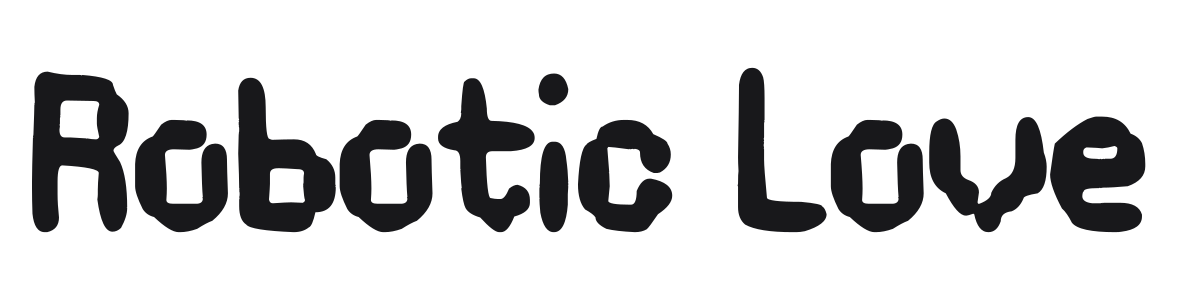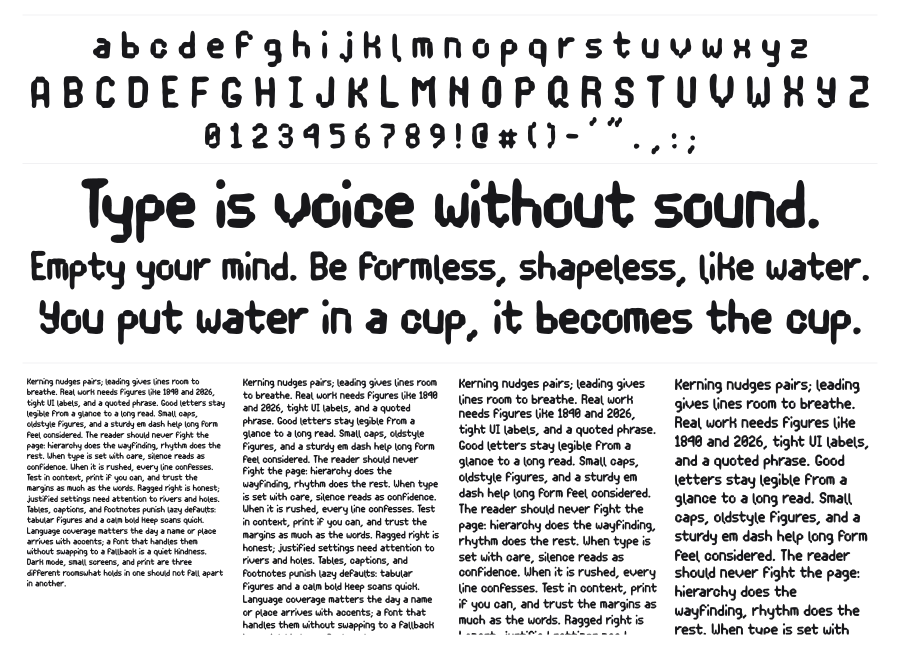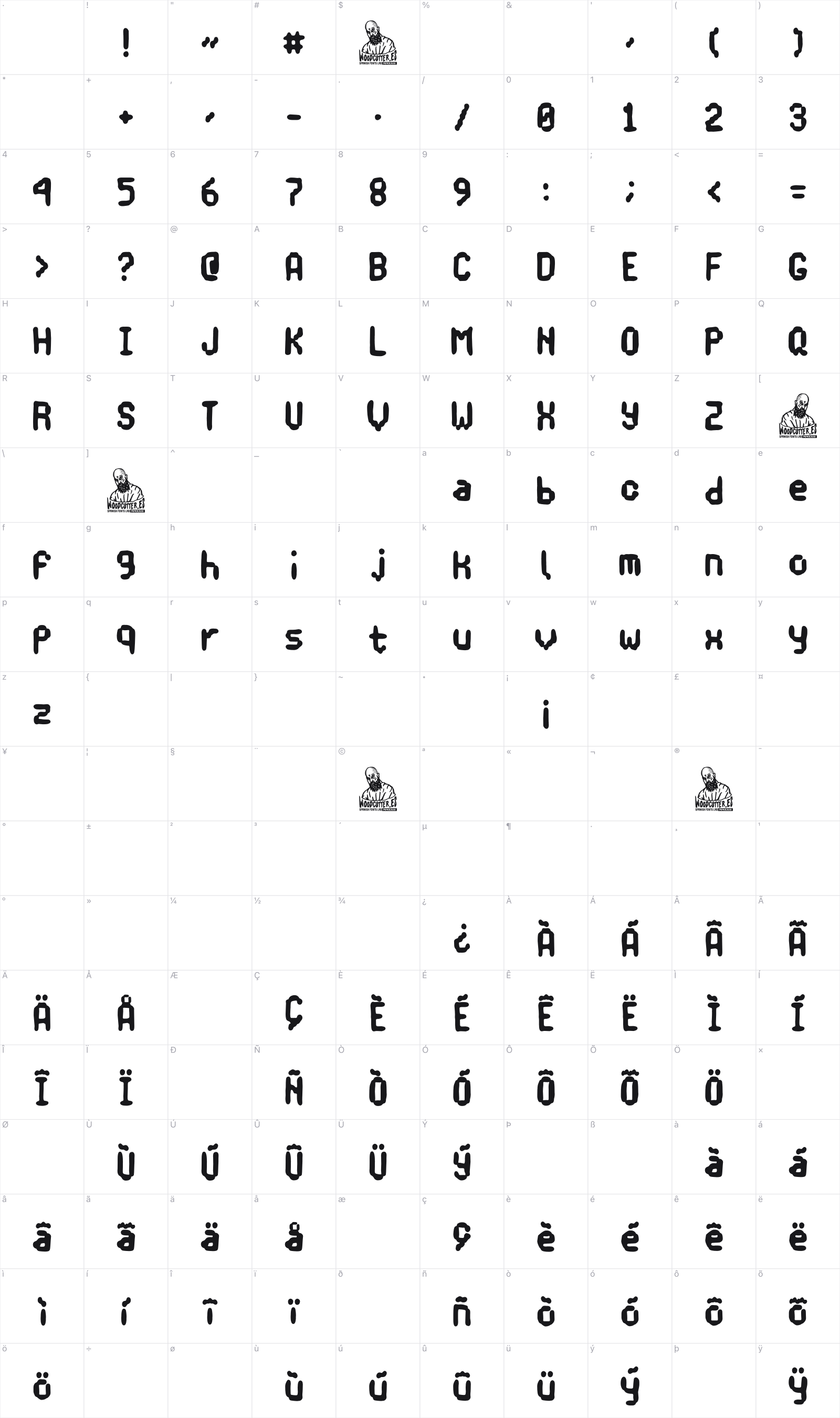
Robotic Love
Robotic Love is a heavy rounded display font by Woodcutter with chunky, balloon-like characters and an intentionally wobbly hand-drawn feel. The extremely thick strokes and deeply rounded terminals push it firmly into comic territory, making it expressive and approachable. It works best large, on posters, packaging, or anywhere a sense of fun matters more than formality.